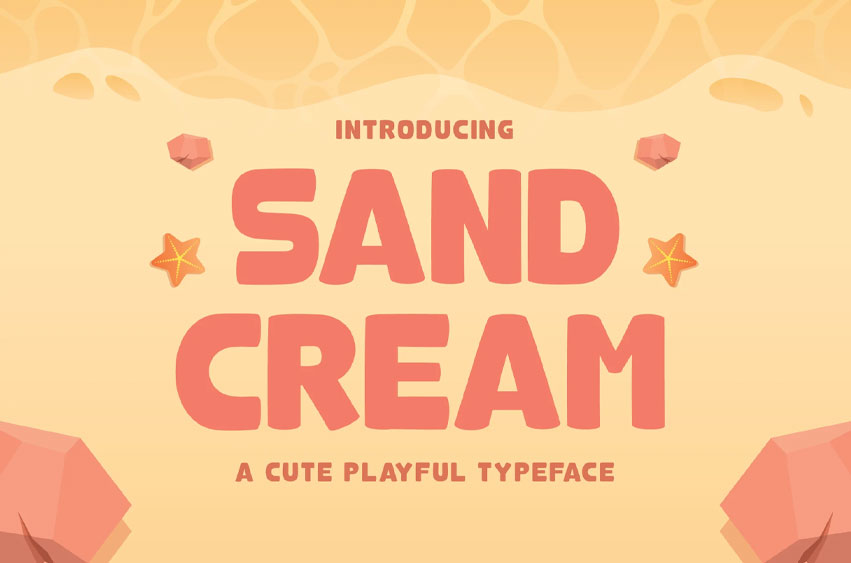
Sandcream Font
Sandcream Font is a cute and playful typeface inspired by sunny days, beach vibes, and sweet summer treats. With its soft edges, chunky shapes, and cheerful personality, Sandcream brings a fun and friendly feel to any design project.
Perfect for children’s books, posters, packaging, logos, or any project that needs a splash of happiness and warmth.
Add a lovely, cheerful personality to your project with Sandcream – Cute Handwritten Font, and make your design feel warm, friendly, and irresistibly charming.